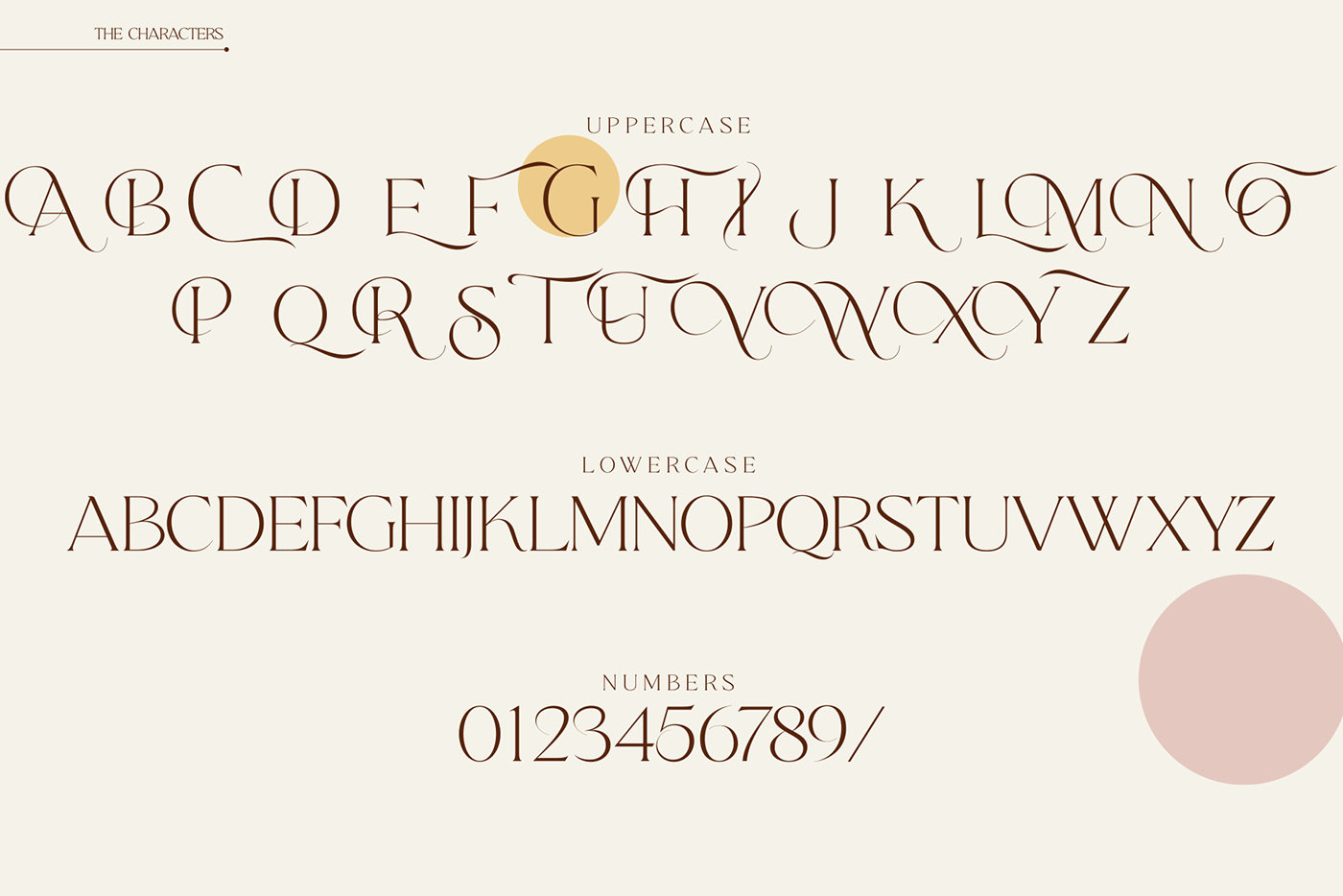
Qene-G is a new sophisticated serif font family created by Balibilly Design. The complete package consists of multiple serif fonts and signature scripts.
A careful approach means this font family provides a luxurious and elegant touch to your project. Smooth curves, flowing terminals, and flirty tails will make your project stand out with a unique luxurious appearance.